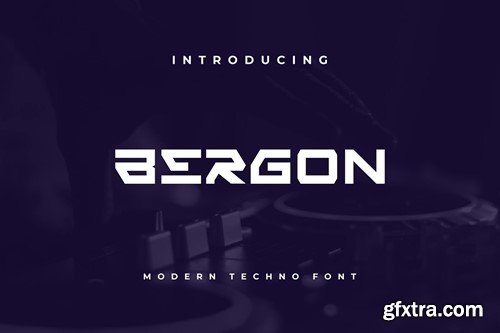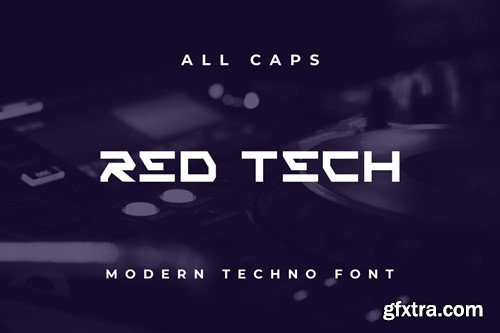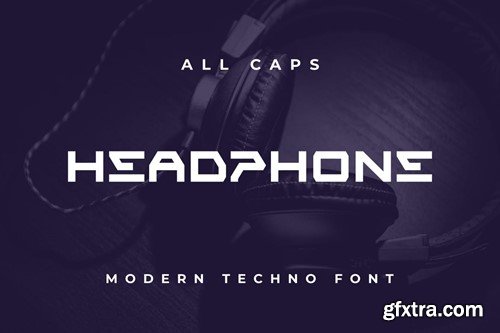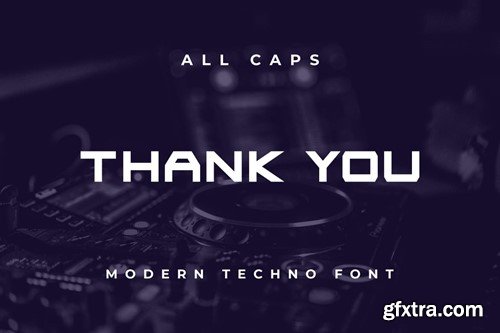
Bergon Font
Introducing our new product Bergon Font - Modern Font is a bold and authentic display font. The font is suitable for any branding project like logo, esport, and many more. outstanding in a wide range of contexts. availlable